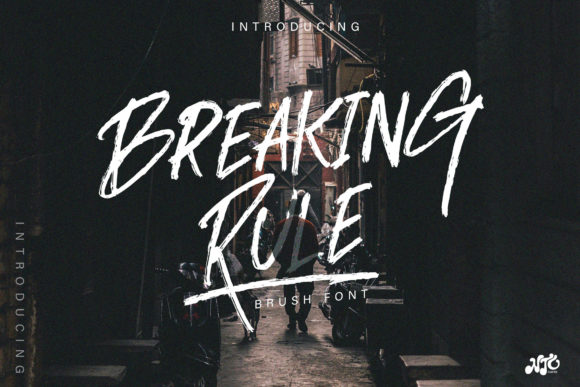
Introducing Breaking Rule Font, a display font that exudes a raw and rebellious spirit, capturing the essence of the vibrant Las Vegas sign aesthetics. Its bold and dynamic strokes evoke the exhilarating energy of the bustling city, promising captivating designs that break the rules and create a lasting impact. Whether you're designing t-shirts, sportswear, logos, advertisements, or clothing, Breaking Rule Font is your ultimate choice to make a statement and leave an indelible impression.
With Breaking Rule Font, you'll find a font that's not just a collection of letters, but a gateway to expressing your creativity with unbridled passion. Its irresistibly cool and brushed texture, reminiscent of street art, adds a touch of edginess and urban flair to your designs. Unleash your artistic vision and break free from the conventional with Breaking Rule Font, crafted with passion by the talented dwikrisdiantoro9.
Dive into the world of Breaking Rule Font and discover a font that's more than just a tool; it's an attitude, a statement, and a revolution. Its powerful aura ignites your imagination and propels your designs to new heights. Embrace the rebellious spirit of Breaking Rule Font and create designs that leave a lasting legacy, reflecting your individuality and captivating the hearts of your audience.
In the realm of fonts, Breaking Rule Font stands as a beacon of innovation, a game-changer that defies norms and embraces the extraordinary. Its unique and eye-catching style sets you apart from the crowd, allowing you to create designs that resonate with a raw and untamed energy.
Don't settle for ordinary fonts that blend in with the rest. Choose Breaking Rule Font and unleash your creativity, leaving an indelible mark on the world of design. Its versatility knows no bounds, allowing you to create designs that speak volumes, whether it's a bold t-shirt statement, a dynamic sportswear design, or an unforgettable logo that commands attention.
Breaking Rule Font is not just a font; it's a statement of individuality, a celebration of creativity, and an invitation to push boundaries and leave your mark on the world. Embark on this journey of self-expression and let Breaking Rule Font be your guide to creating designs that break the mold and leave a lasting impact.